When it comes to choosing the right font for your website headings, it can be really time-consuming. Now if you have selected a really good font for your website headings, that will add more value to your designs & will make the final product look more beautiful. The best thing about today’s web scenario is, you have so many options & places available from where you can download a font that you think is best for describing your product or business. Even if we talk about free ones these are really cool too & design-friendly at the same time. Now let's just come to the point, fonts that you’ll find here are simple and straight-forward which is suitable for the modern design concept. Font selection really depends on your product requirements I believe but no one can point the personal choice thing.
1. Densia Sans
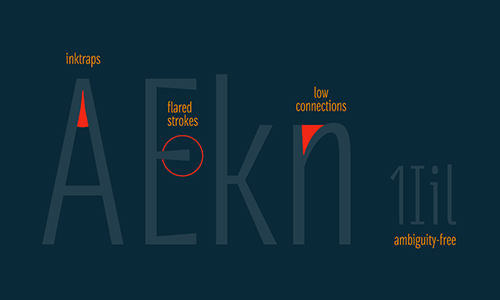
This is very popular font, designer know this font by the name of an economic sans serif. Basically Denisa sans is designed for using with sizes from 6 to 14 points.
2. Bebas Neue
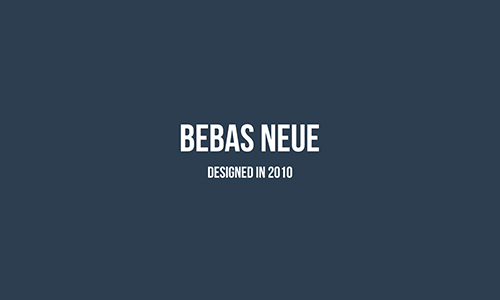
3. Simplifica
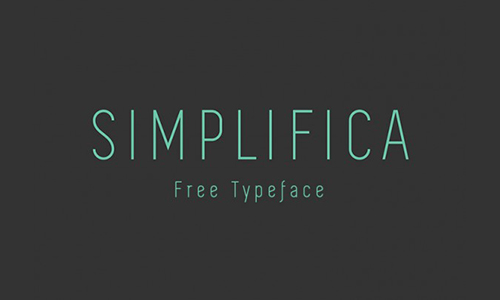
Simplifica is a beautiful looking font and if we talk font family simplified is a condensed sans-serif family font.
4. Calendas Plus
Calendas Plus is a free typeface with a classical air. Calendars plus was designed for work in small sizes.
5. Aileron
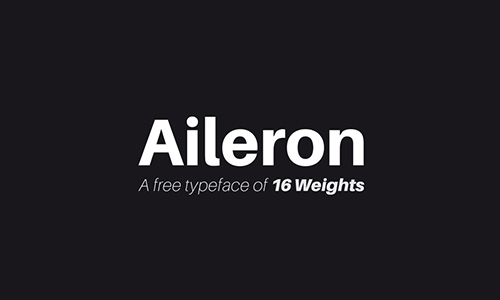
Aileron is a free font inspired by aircraft models from the 40s. This font add good value to your design.
6. Gidole
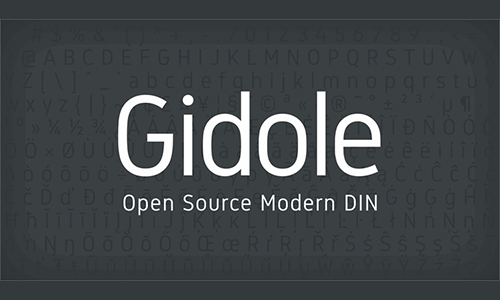
Gidole is a beautiful font with a modern feel into it. It is a sans-serif free font designed and by Andreas Larsen.
7. Corbert Condensed Italic
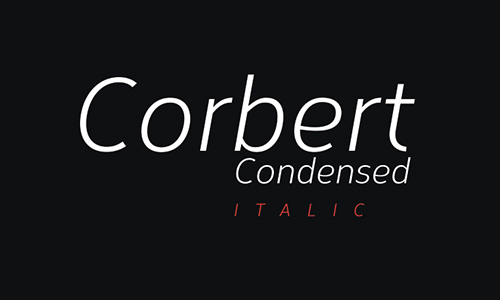
By the name itself you may have got an idea, this font is the condensed version of the original Corbert font, with its letters being 15% closer than those of its parent.
8. Graviola Regular
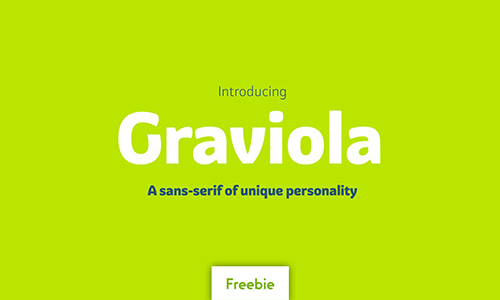
Graviola is a sans serif typeface with semi-rounded terminals that give it a soft and friendly look.
9. Moderne Sans
Moderne Sans is a clean sans-serif typeface free to download font. This font is designed by Marius Kempken.
10. Fertigo
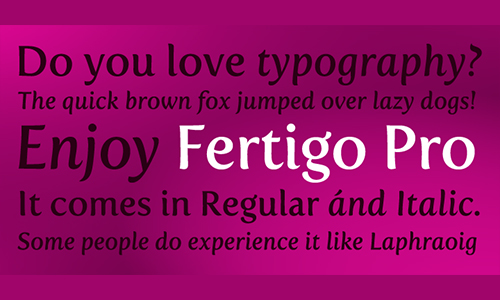
11. Baufra
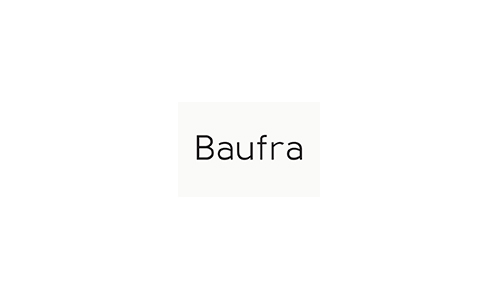
Baufra is a humanist sans-serif typeface. It is based on the sans-serif typefaces of the early 20th century.
12. Proza
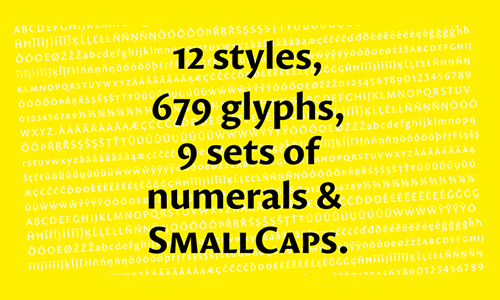
Proza is a humanist sans serif type family, proza is designed by Jasper de Waard
13. Fontin Sans
14. Gentona
Gentona font was designed for a wide range of applications, it was intended to support the goals of contemporary design paired with a mostly swiss oriented demand on typography.
15. Gone Typeface
Gone typeface is released for free. Gone font was created by Nathan Metzler.
16. Qontra
QONTRA is a condensed sans serif font with low contrast which suits well any kind of text and typographic applications.
17. Frutiger
Frutiger is a humanist sans-serif typeface and one interesting thing about this font is that it is named after its Swiss designer, Adrian Frutiger.
18. Cinzel
Cinzel is a typeface inspired in first-century roman inscriptions and based on classical proportions.
19. Brayden Family
Brayden Family is Family font that includes 3 weight on script fonts + 1 Sans serif fonts to create the beautiful combination
20. Prosto Sans Bold
Prosto sans bold font belongs to the sans serif category and it is a quality sans serif font created for casual use in interactive environments.
21. Hit The Road
Hit the road is a free to download font & this free for commercial use as well basically hit the road font based on the lettering on the signs of our nation's Interstate highway system.
22. Foobar Pro
Foober pro font belongs to the sans serif category. There are so many fonts like this you can find online.
23. Manifold CF Font
Manifold is a cool looking font and manifold sans serif font family is a utilitarian typeface created with the strict precision of a computer terminal and polished by modern design influences.
24. Brixton Line Font
Brixton Line is a creative and free font for amazing design projects. It is a simple and effective handcrafted serif font.
25. Audrey
Audrey is a new & beautiful looking font created by Cristina pagnotta. Audrey is a free download for personal & commercial use.
26. Proxima Nova
Proxima Nova is available as a desktop font and a web font. Proxima Nova font is designed by mark simonson studio.
27. Raleway
Raleway is an elegant sans-serif typeface family. It is available for both Mac & PC free download. Raleway was designed by matt mcInerney.
28. Ikaros